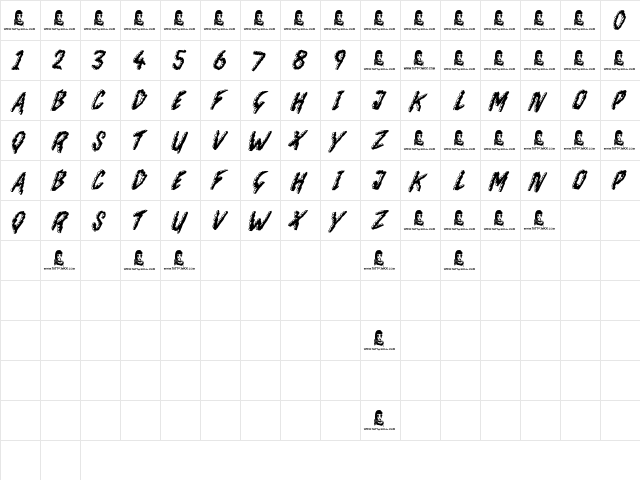
Chocolate Smoothie Regular
Design Context for Chocolate Smoothie Typeface
Chocolate Smoothie is a composed and adaptable typeface that performs quietly and consistently across a wide range of design contexts.